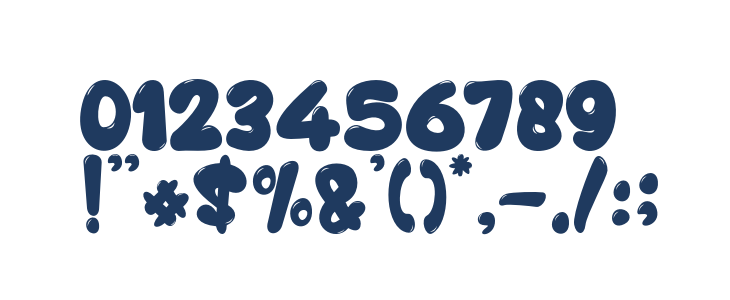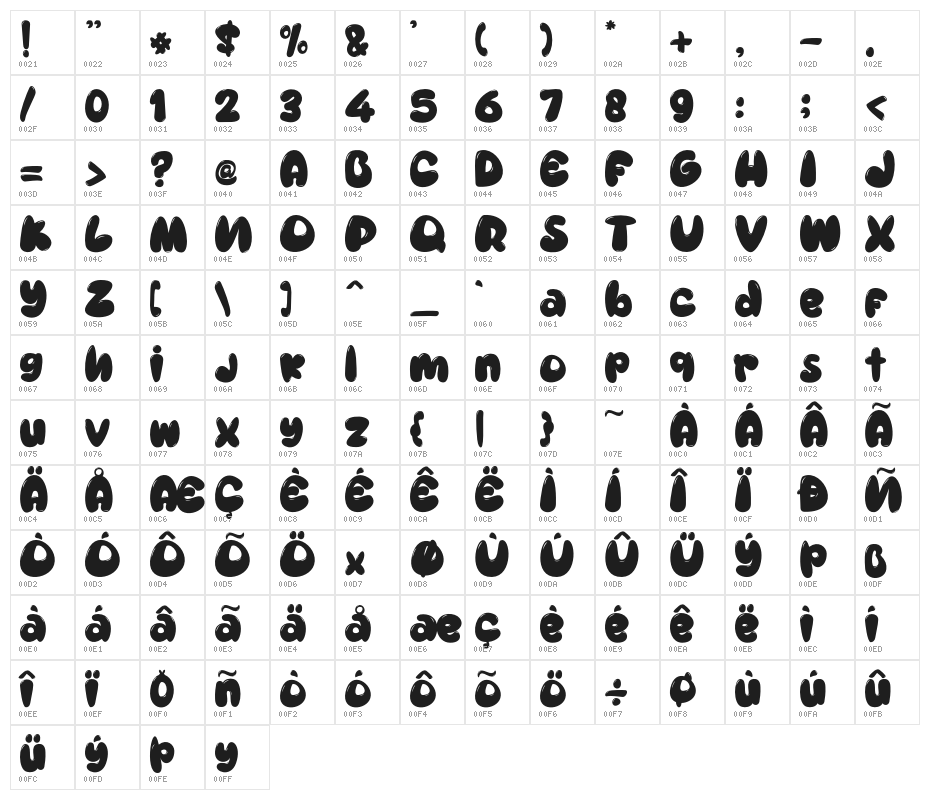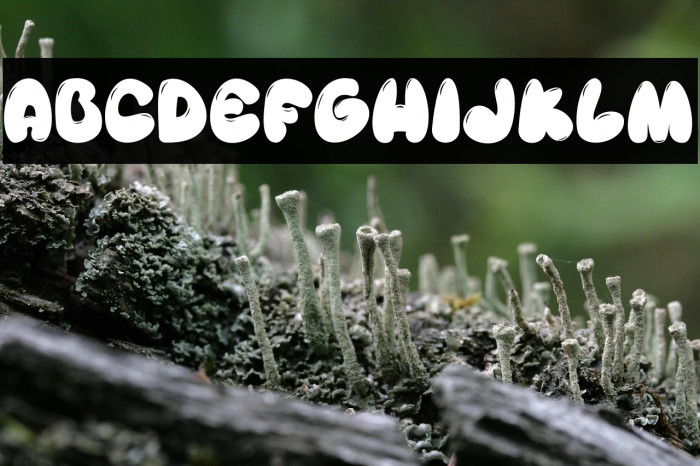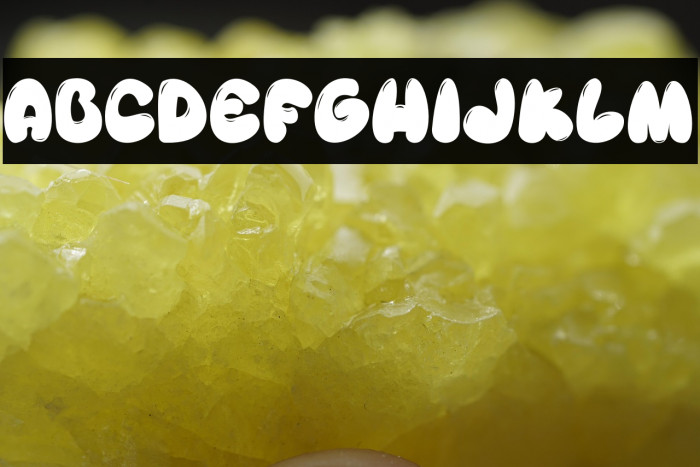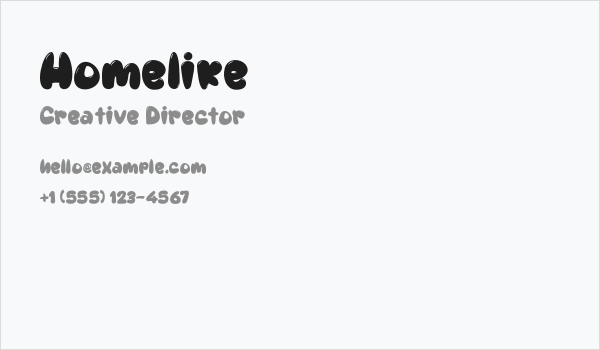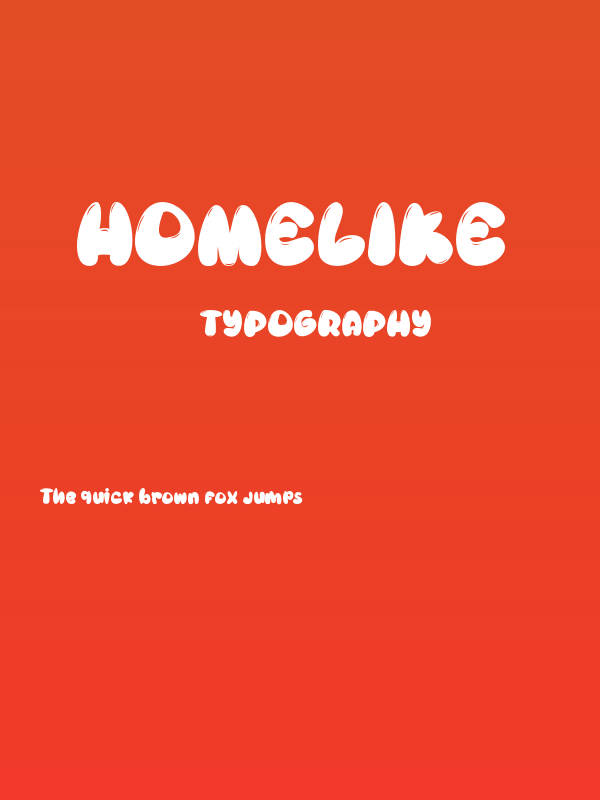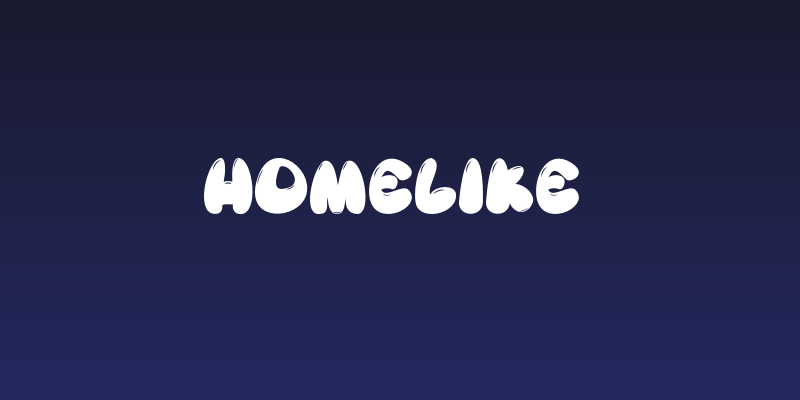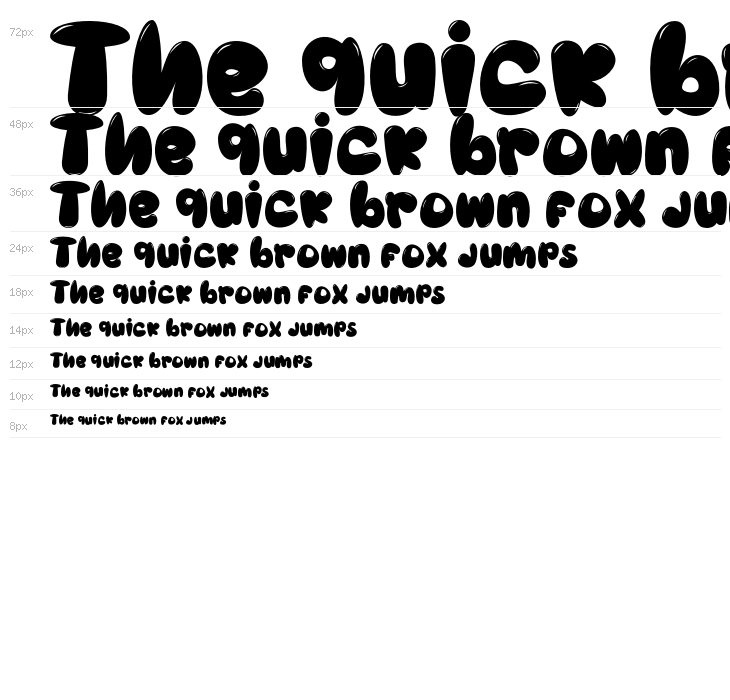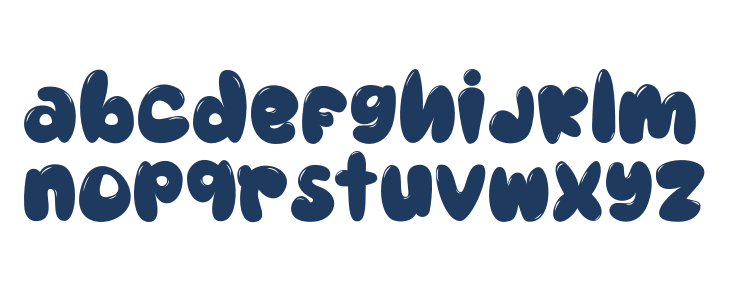
Homelike Font
Homelike Description
This playful and bold font features rounded, bubbly characters that exude a sense of fun and creativity. The letters are thick and have a uniform stroke width, giving them a strong presence on the page. The overall design is reminiscent of cartoon or comic styles, making it ideal for projects that aim to capture a youthful or whimsical vibe. The characters are evenly spaced, ensuring readability while maintaining a cohesive look. This font is perfect for eye-catching headlines, playful branding, or any design that requires a touch of personality and flair.
| Proposed Projects | Ideal for children's book covers, playful branding, comic strips, and creative posters. |